Great graphic design is powered by great font selection. But picking great fonts is a challenge most people. Luckily, Canva has made adding great fonts to your designs much easier. In this tutorial, our team of design experts will cover the best military fonts in Canva.
What is a Military Font?
Military style fonts are fonts that are designed to have a strong, authoritative, and no-nonsense feel, often associated with the military and other branches of law enforcement. Some characteristics of military style fonts include:
- Serif: Military style fonts are often serif, with a bold and straightforward design that is easy to read.
- Tall and narrow: These fonts have tall and narrow letters that can give the impression of strength and discipline.
- Blocky and angular: Military style fonts can have blocky and angular designs, with sharp corners and straight lines that can create a sense of order and discipline.
- Limited ornamentation: These fonts may have limited ornamentation or decorative elements, with a focus on simplicity and functionality.
- Monospaced: Military style fonts may be monospaced, meaning that each character takes up the same amount of horizontal space, which can create a clean and uniform appearance.
- Versatile: Military style fonts can be used in a variety of designs, from logos and branding materials to posters, packaging, and apparel.
Best Military Fonts in Canva
1. Fira Code
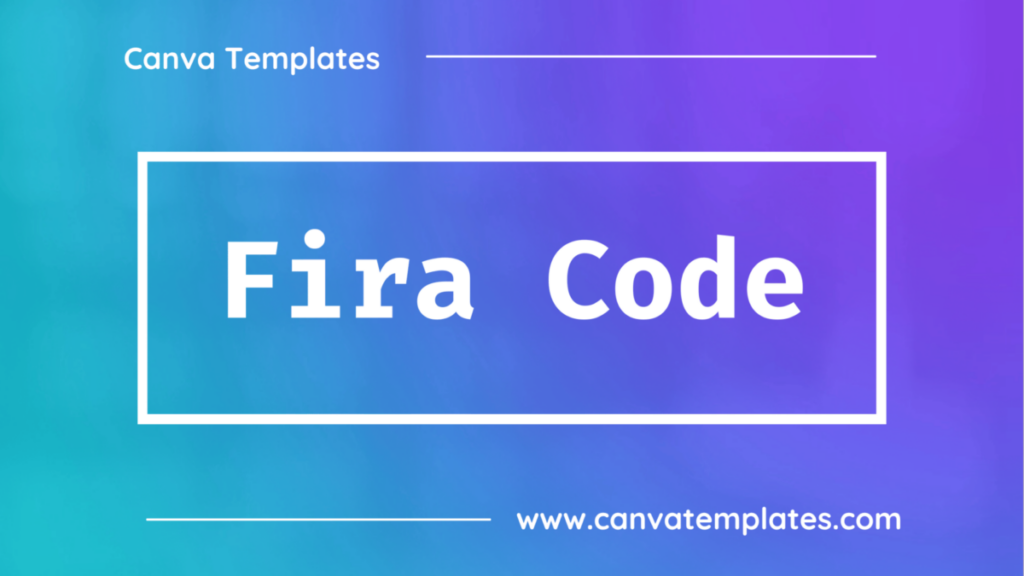
Fira Code is a monospaced font designed for programming and computer science. It includes ligatures, which are special characters that combine multiple symbols into a single glyph for improved legibility.
2. Rumble Brave
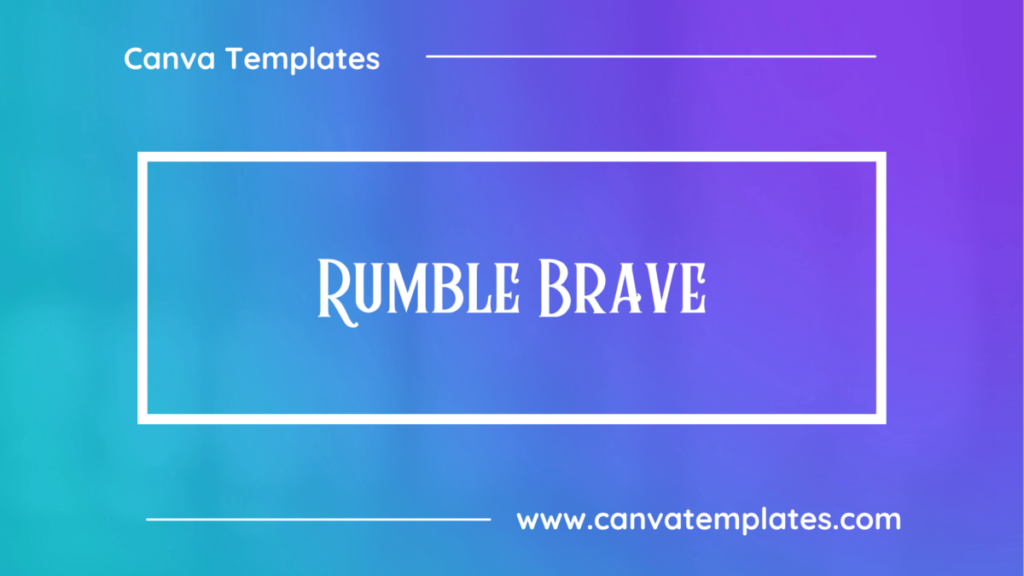
Rumble Brave is a display vintage font by Alit Design. It contains a complete pack of glyphs, including capitals as well as lowercase letters, numbers, symbols, and also multilingual characters.
3. Robolt
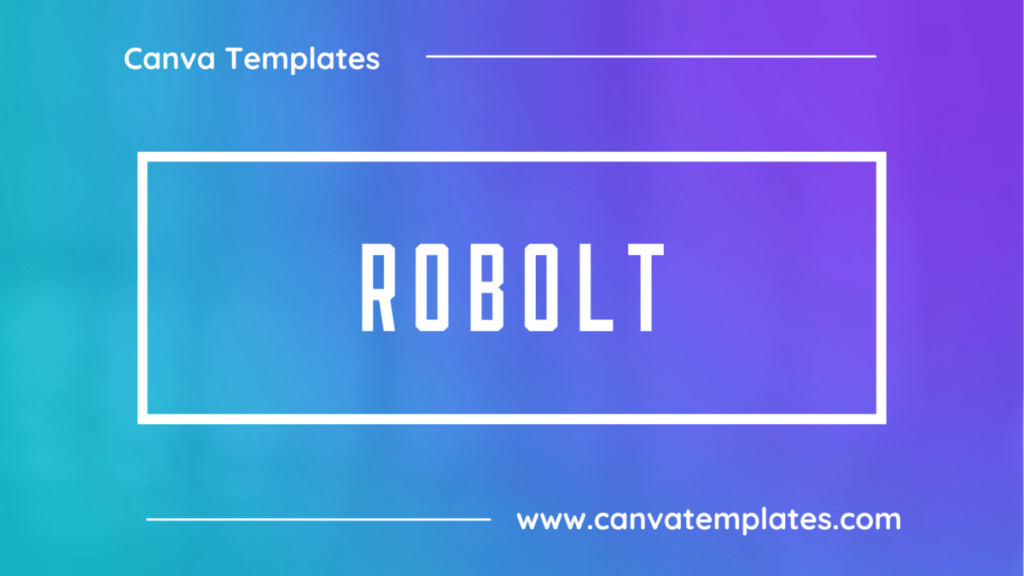
Robolt is a futuristic display font with a geometric, angular design. It features thin, sharp lines and pointed corners, giving it a modern, high-tech look.
4. Badger
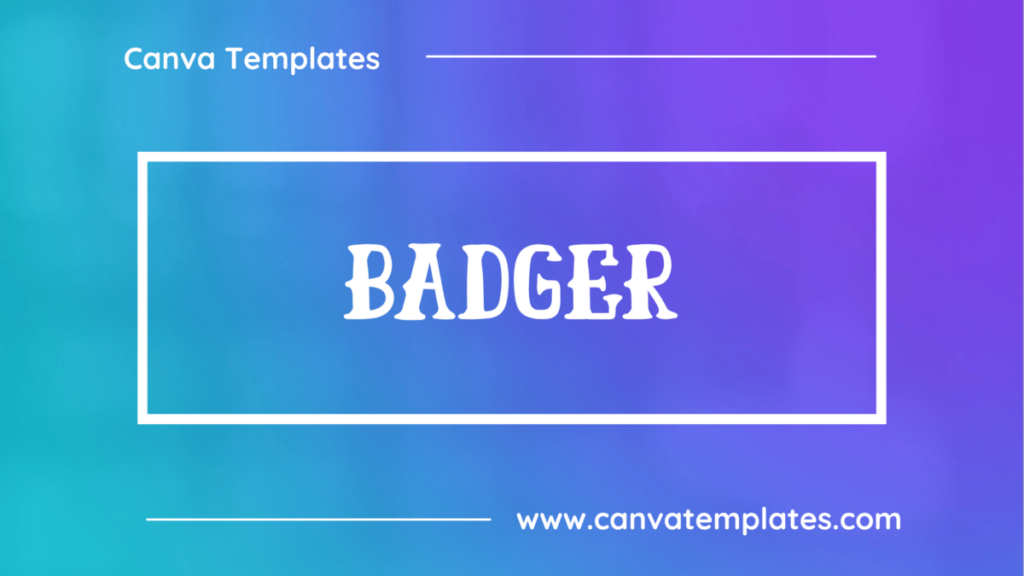
Badger is a font that can make it easier to convey the message in your design. The Bold and authoritative font is used for awesome display, labeling, clothing, movie scenes, poster, movie title, gigs, album covers, logos, and much more.
5. Orion
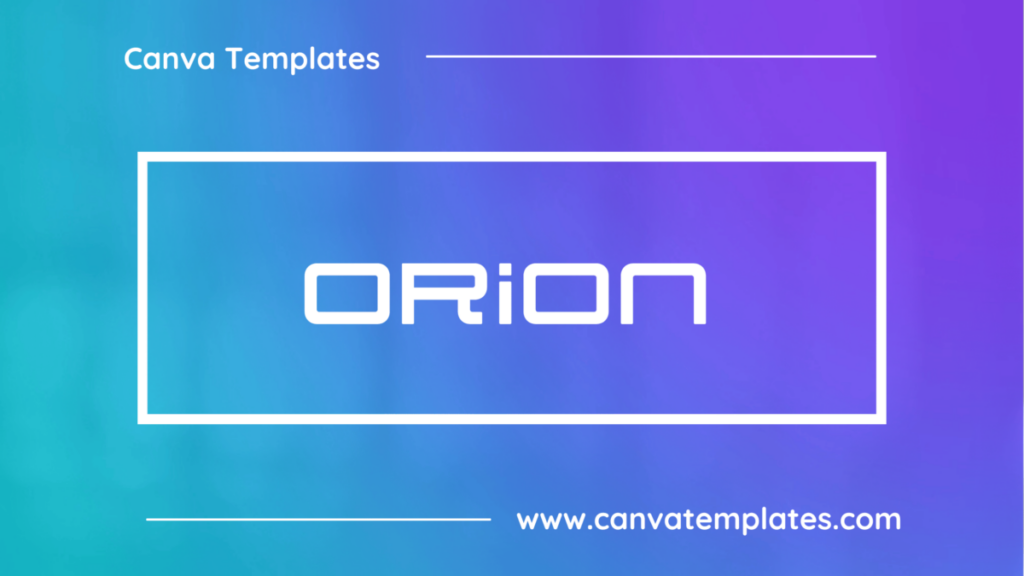
Orion is a futuristic display font with a bold, angular design. It features thick, blocky letters with sharp corners and a high-tech aesthetic.
6. Armies Display
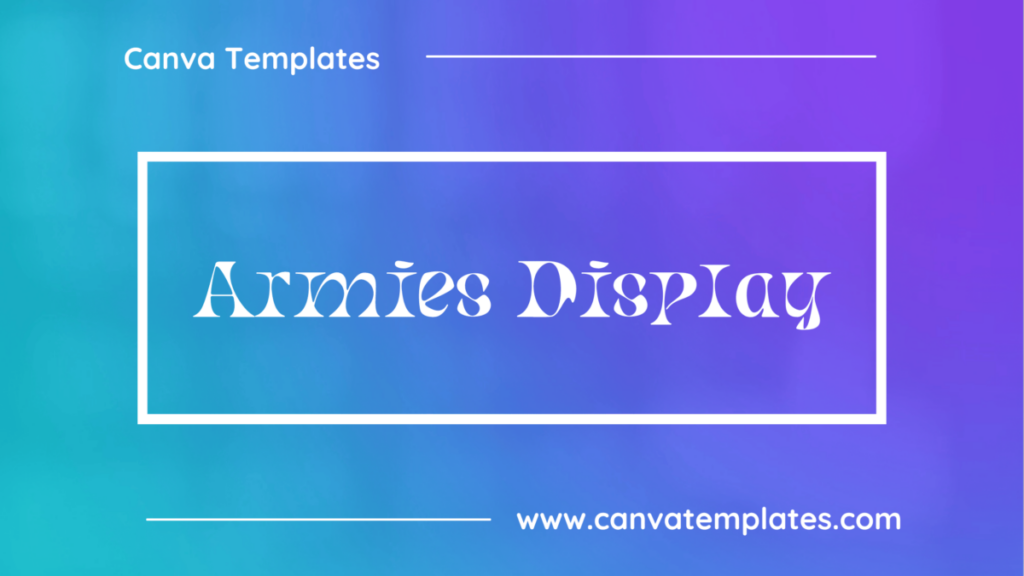
Armies Display is a bold and impactful font with a military-inspired design. Its tall and narrow letterforms give it a strong and authoritative feel, making it a great choice for projects related to security, defense, or law enforcement. It works well for logos, headlines, and editorial designs.
7. Special Elite
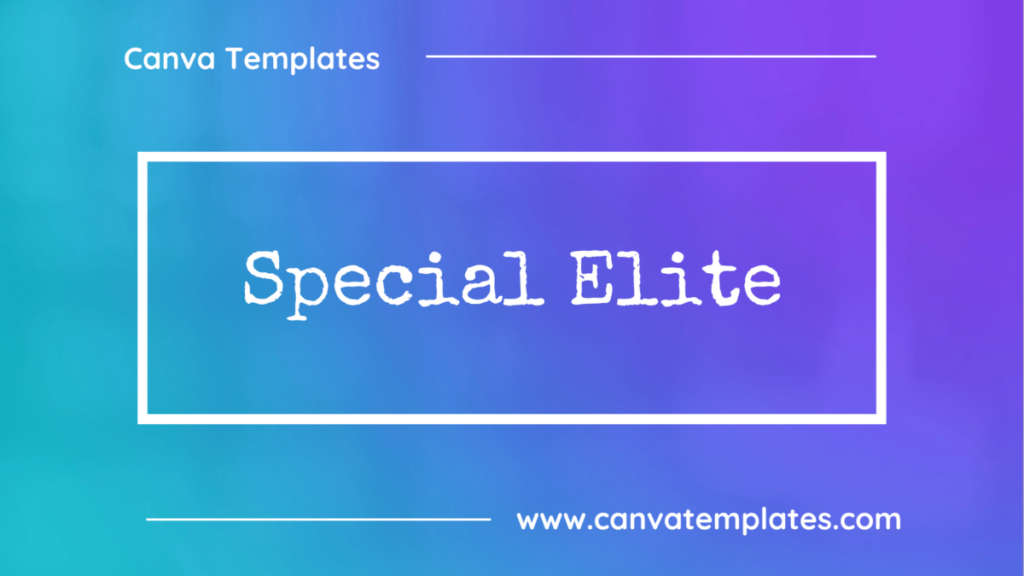
Special Elite mimics the Smith Corona Special Elite Type Number NR6 and Remington Noiseless typewriter models. A little bit of inked-up grunge and a little old-school analog flavor work together to give you a vintage typewriter typeface for your website and designs.
8. Squada One
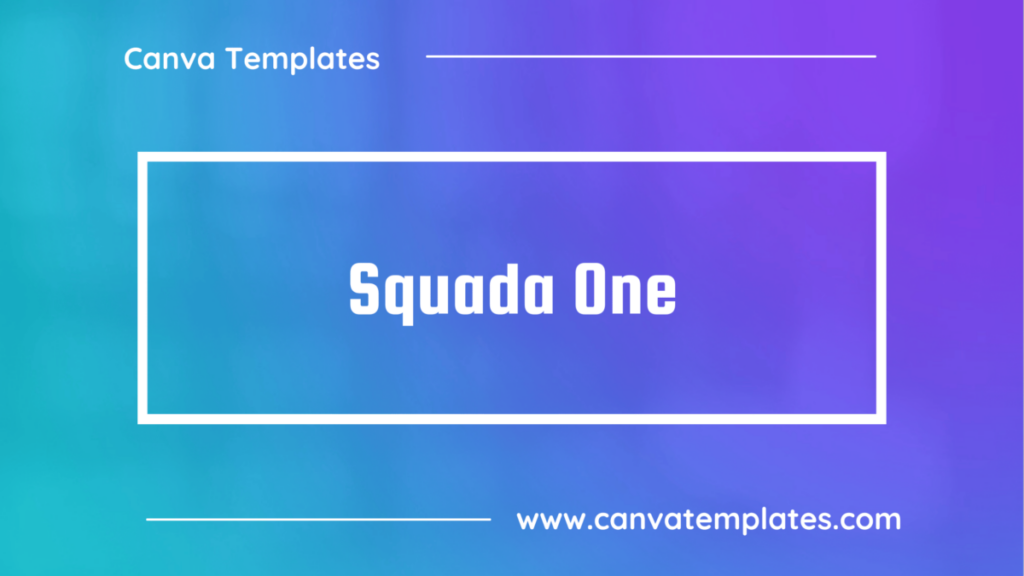
Squada One is the perfect font to make a lasting impression on any webpage. Its bold presence and geometric, condensed form allow for a setting in any context. Squada One can be used at any size while still maintaining clarity and smoothness.
9. Telegraf
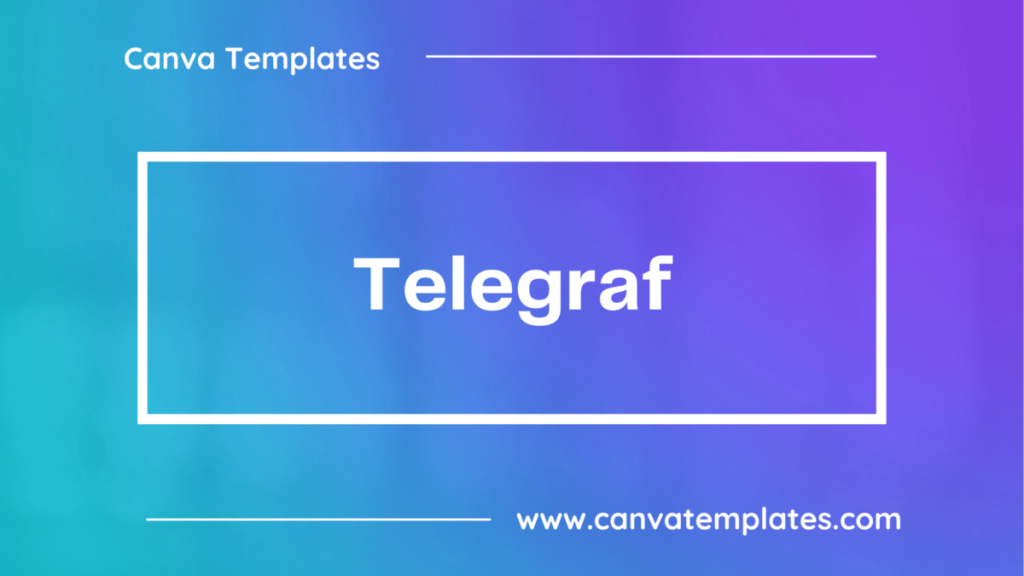
Telegraf combines the forms of mid-century grotesks with rigid angles. As its weight increases, Telegraf’s counters become more rectangular, to help with on-screen viewing at small sizes, and to increase impact at large sizes.
10. Intro Rust Base Shade
Intro Rust Base Shade is a distressed and textured font with a shadow effect that gives the letters a rugged appearance.